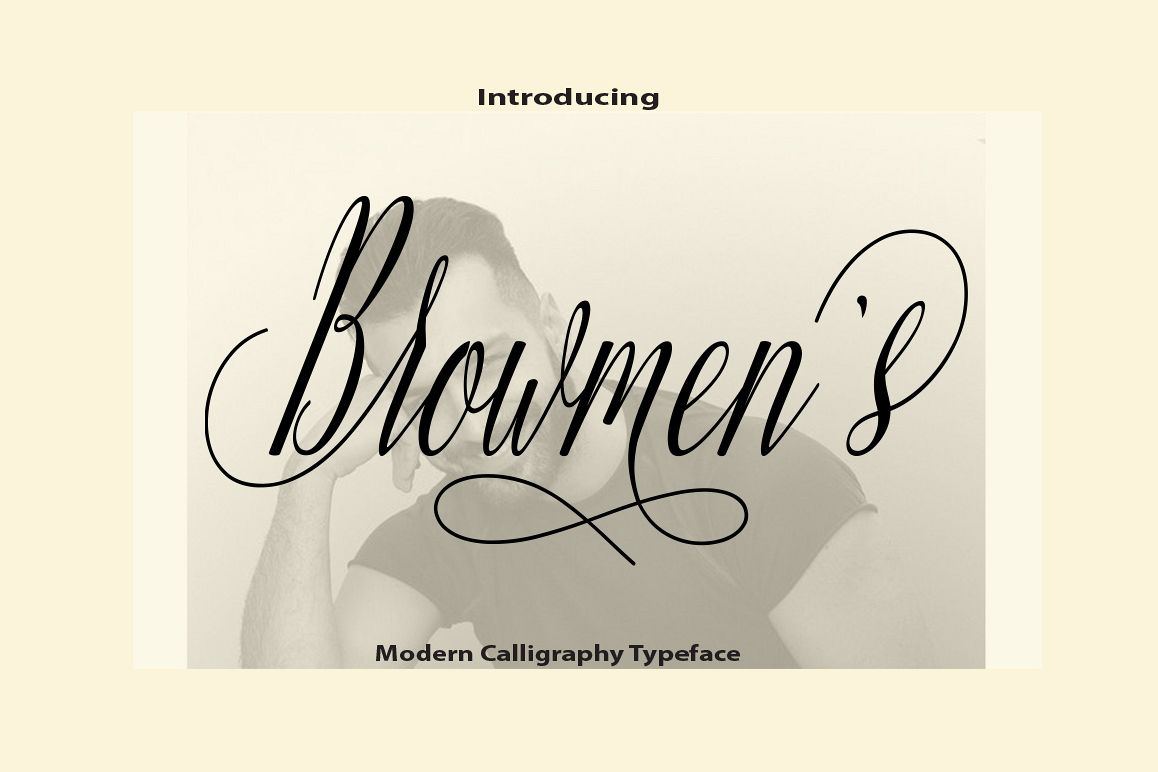
Browmen's
Browmen's is another lovely modern calligraphy typefaces, which is combining the style of classic calligraphy with an modern style. combines from copperplate to contemporary typeface with a dancing baseline, modern and elegant touch. Browmen's features alternate characters Include. including initial and terminal letters, alternates, and multiple language support ..
The Features of this fonts is;
* Stylistic Ligature
* Stylistic Alternates
* Stylistic sets
* PUA Unicode (Private Use Areas)